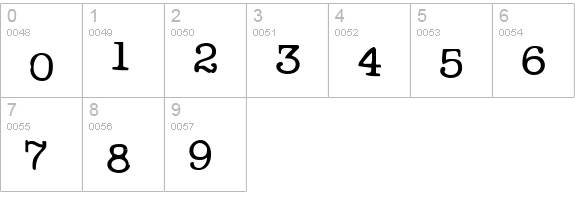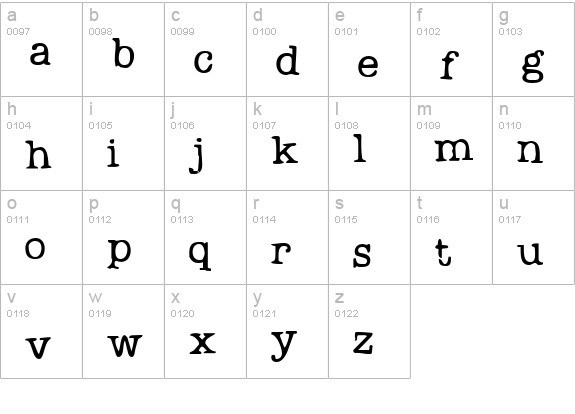
Problem Secretary Font Details
Problem Secretary font is a unique and quirky typeface that combines elements of classic typewriter fonts with a modern and playful twist. Its irregular strokes and uneven spacing give it a handcrafted feel, perfect for adding a touch of personality to your designs. This font is freely available to download at FontsMarket.com, making it accessible to anyone looking to add a fun and unconventional touch to their projects. Whether you're designing posters, invitations, or social media graphics, Problem Secretary font is sure to make a statement and stand out from the crowd.